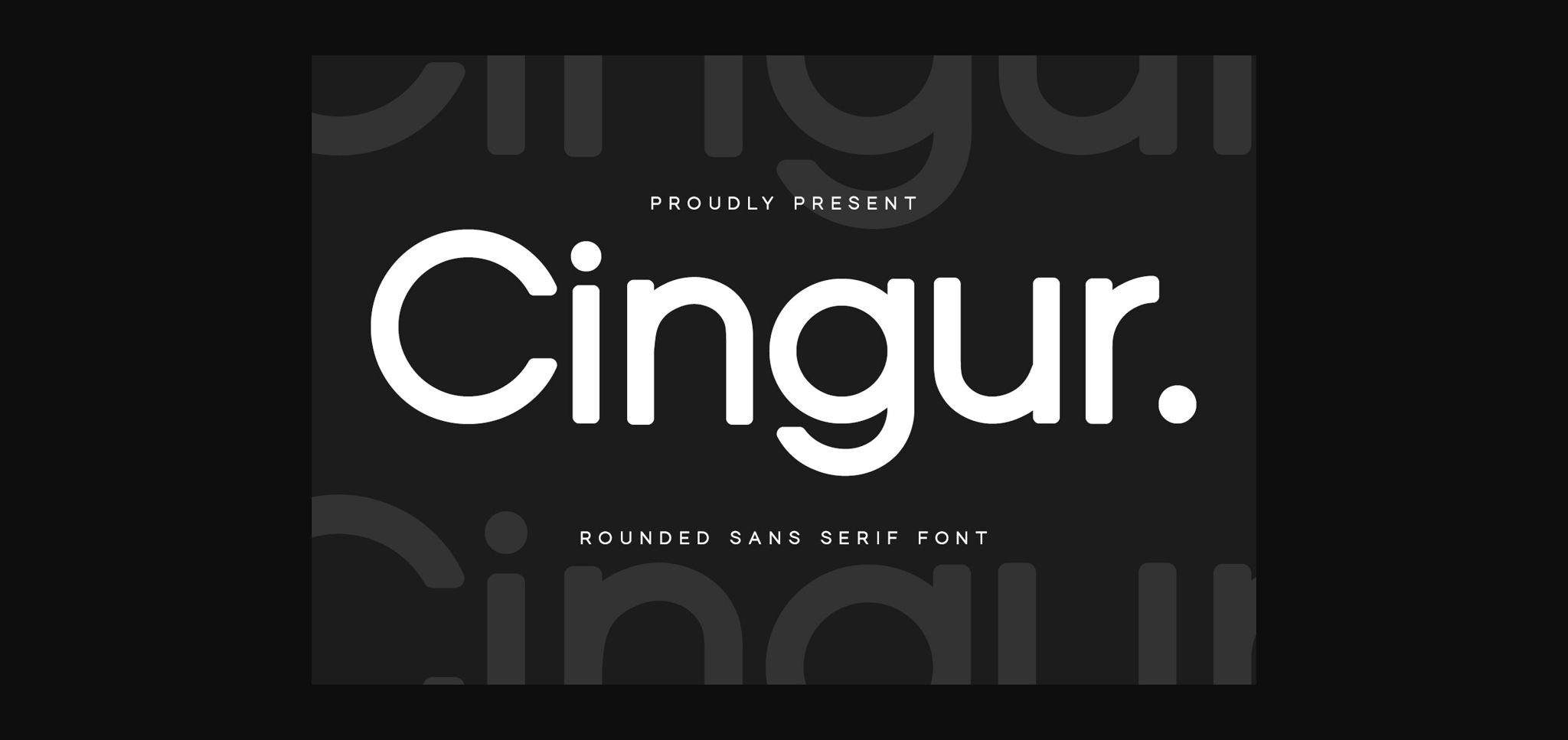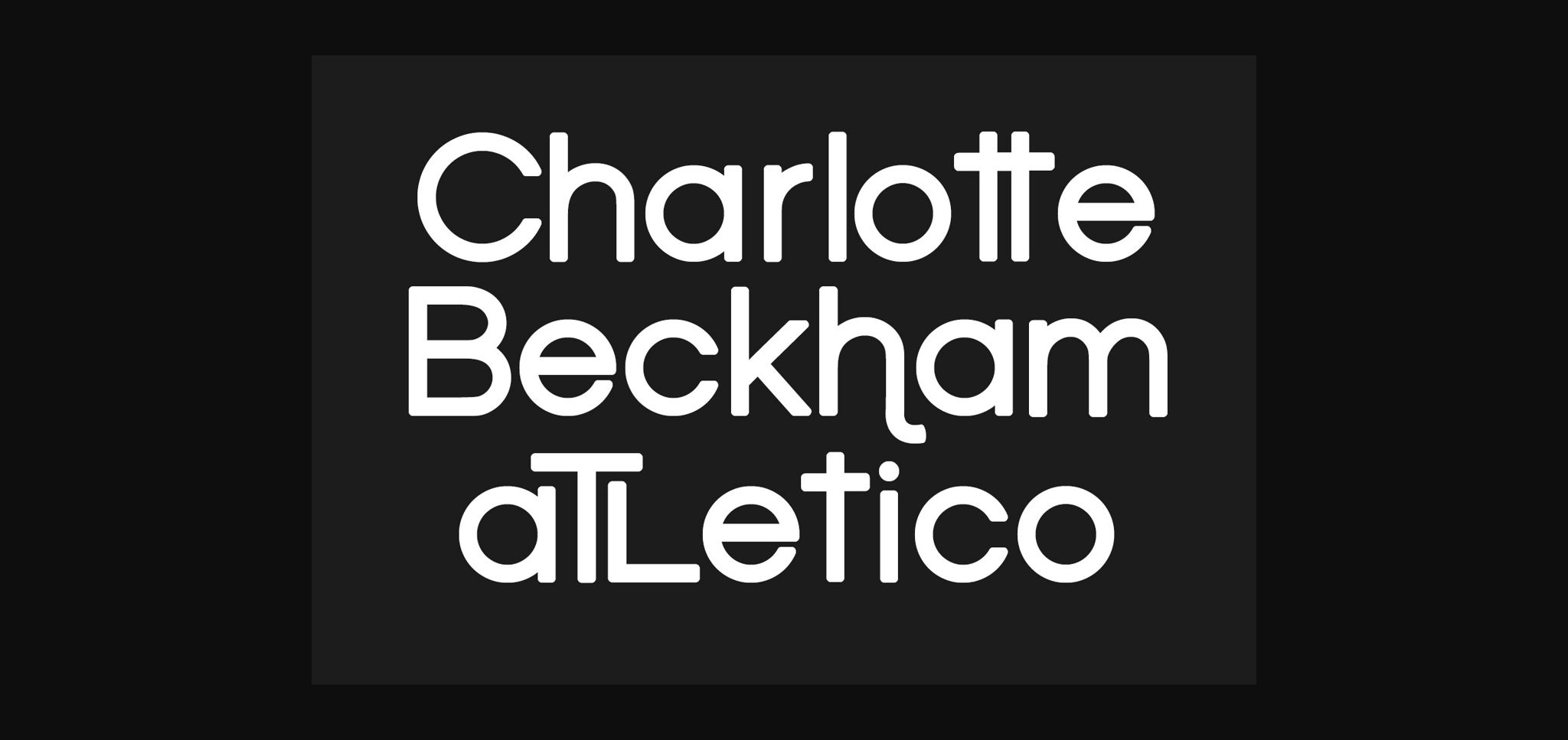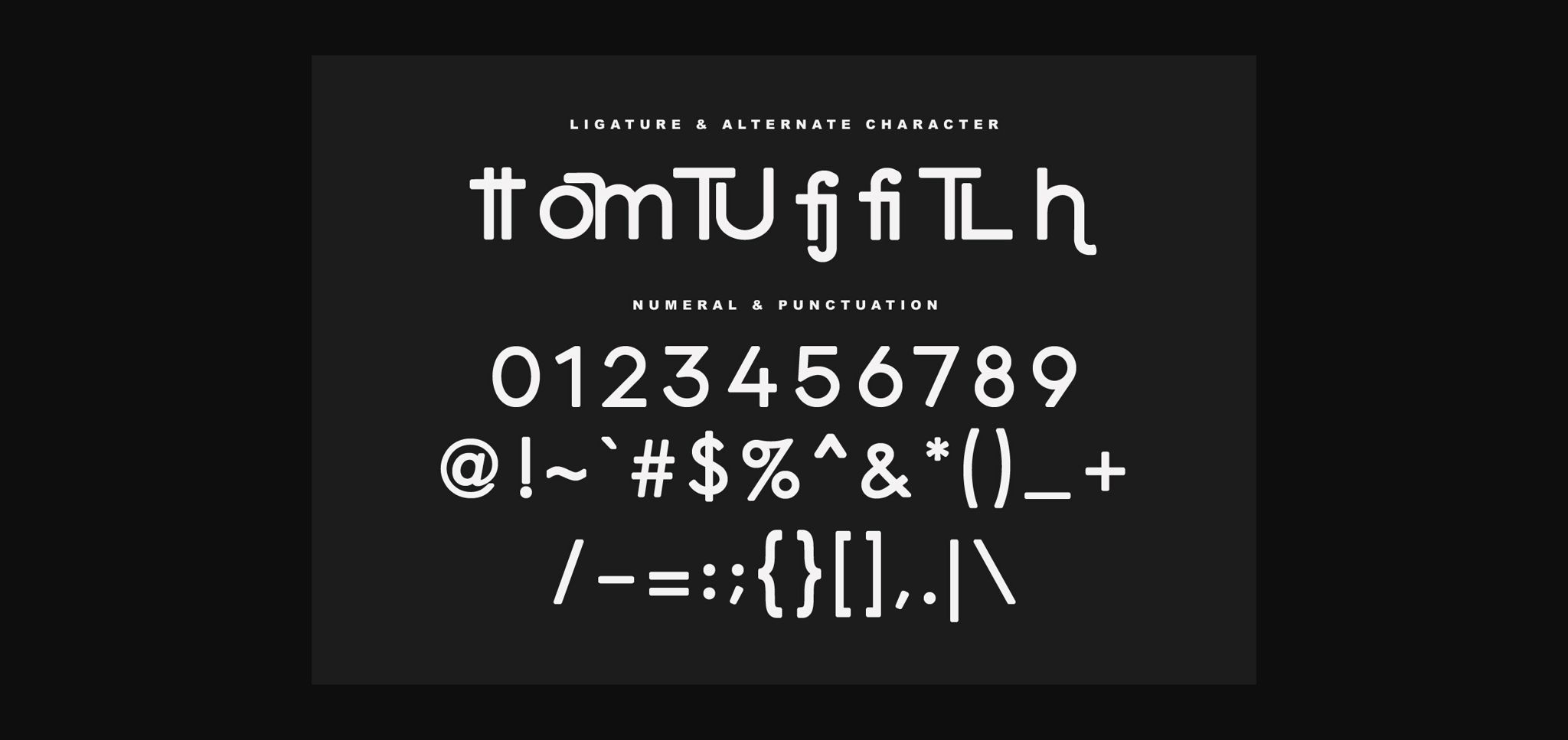
About Cingur Font
Cingur rounded sans serif font. Heavy stroke, fun character with a bit of ligatures. To give you an extra creative work. Cingur rounded sans serif font support multilingual more than 100+ language. This font is good for logo design, Social media, Movie Titles, Books Titles, a short text even a long text letter and good for your secondary text font with script or serif. Make a stunning work with Cingur rounded sans serif font.